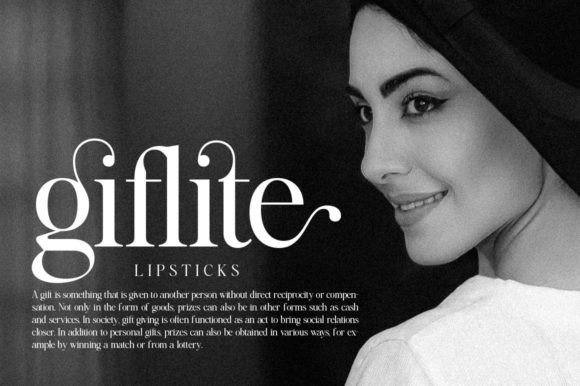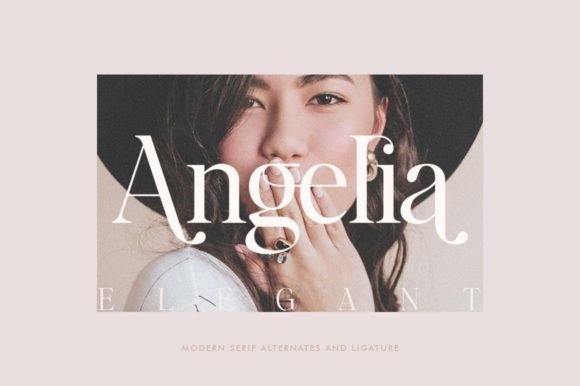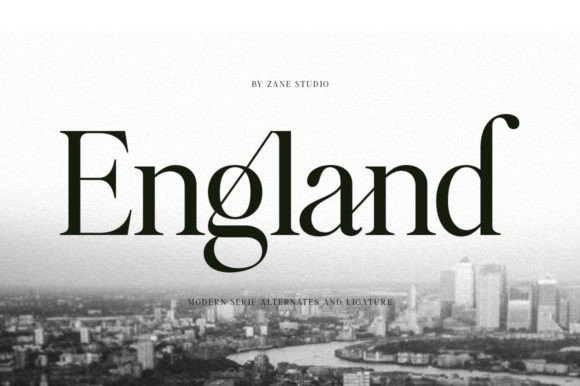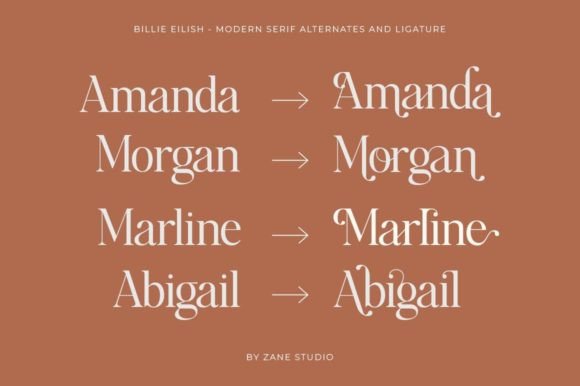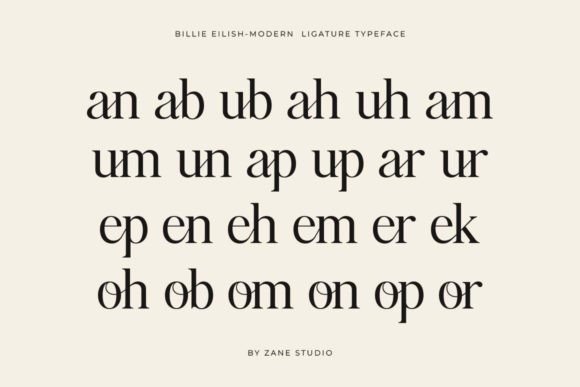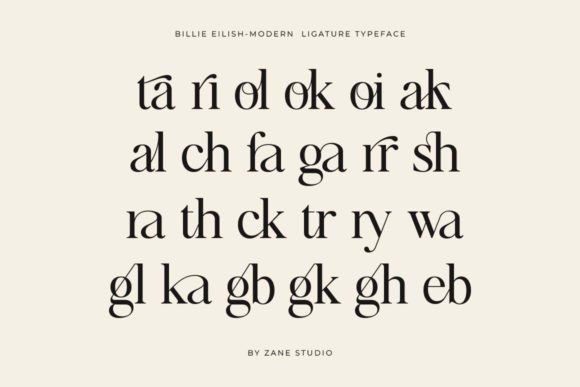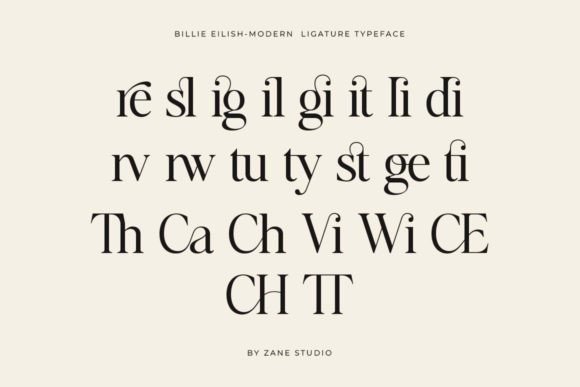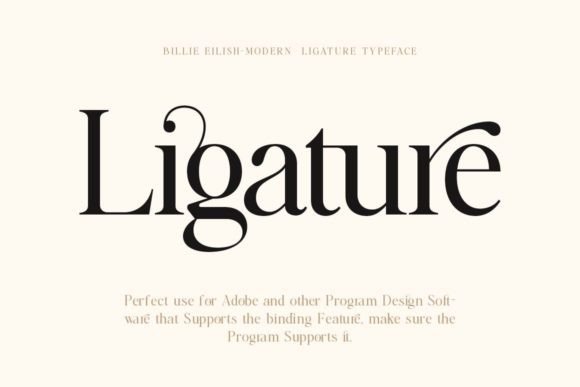
Billie Eilish Font
Billie Eilish is a modern, elegant and classy serif typeface, best used as a display for headings, logos, branding, magazines, product packaging, and invitations.
Billie Eilish comes with clean lines and smooth curves that give any project an extra touch of class.